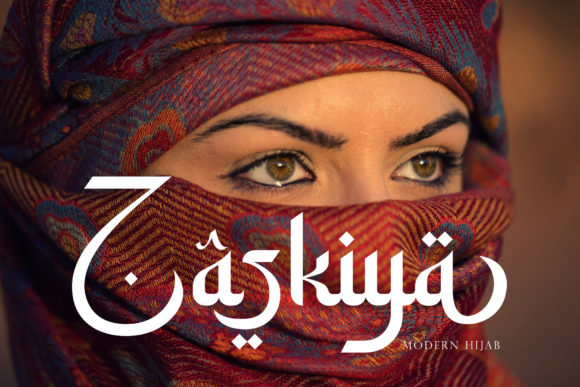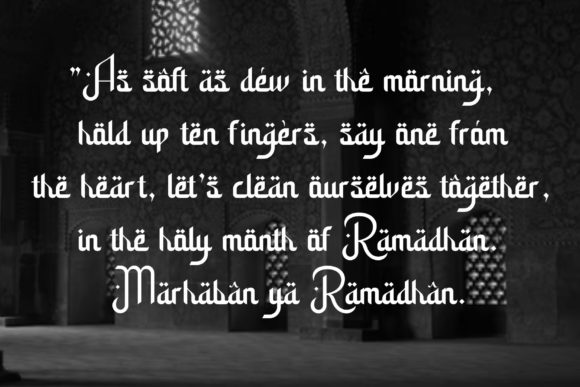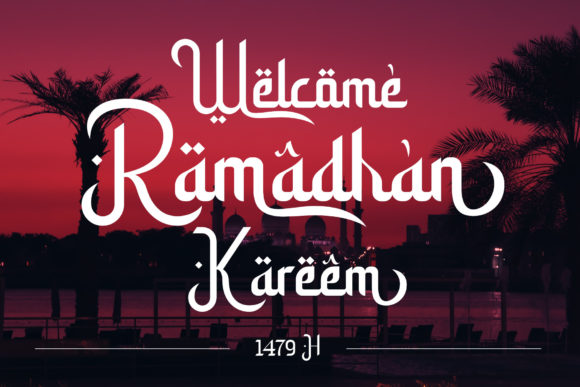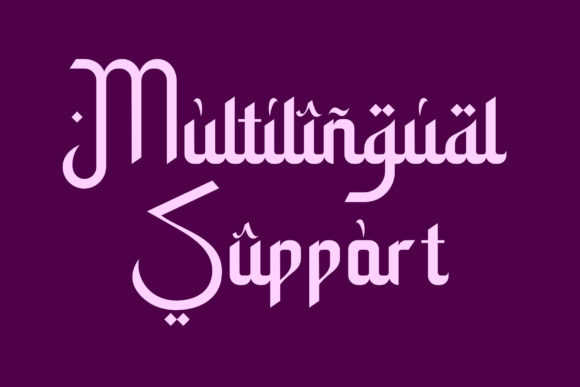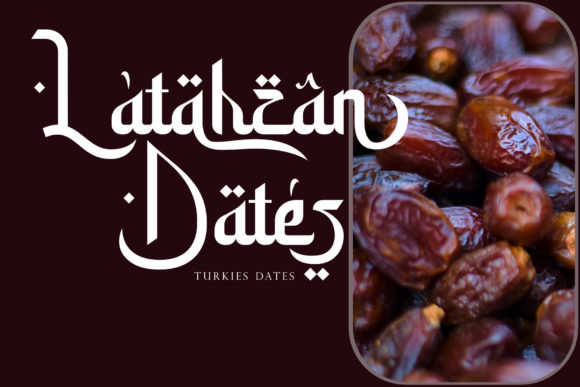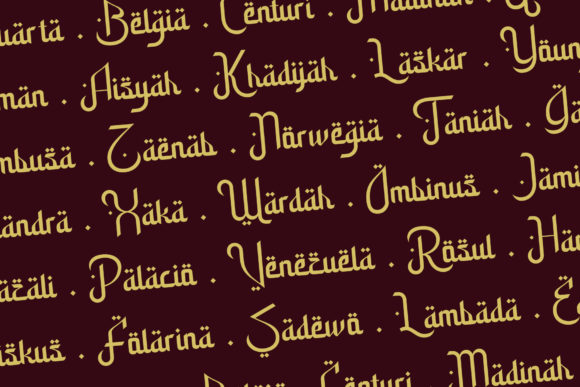
Introduction to Ramadhan Amazing Font
Have you ever been working on a creative project, pouring your heart and soul into it, only to be limited by the design resources available? You finally land on the perfect font, but it’s not quite fitting the vibe you’re going for. This is where the Ramadhan Amazing Font comes in – a stunning Arabic-styled display font that’s sure to elevate your design game.
Whether you’re a seasoned designer or just starting out, the Ramadhan Amazing Font is an invaluable asset to have in your toolkit. With its high-quality design and transparent background, it’s perfect for branding, logotype, and even apparel design. And the best part? It’s PUA encoded, making it easy to access all of the glyphs and swashes you need for a truly unique look.
Key Features of Ramadhan Amazing Font
- High-quality, professional design suitable for various creative projects, including posters, flyers, and digital designs.
- Includes a range of elegant, cursive, and modern font styles to cater to diverse design needs.
- Transparent background, allowing for easy customization and integration into various design elements.
- Perfect for designers and artists looking to add a touch of elegance and sophistication to their work.
Honest Review: Ramadhan Amazing Font
As a designer, I was excited to dive into the world of creative projects and find new design resources to elevate my work. The Ramadhan Amazing Font caught my eye, promising high quality and versatility. After putting it to the test, I’m here to share my honest thoughts.
- ✨ The font is incredibly easy to use, with a transparent background that makes it seamless to overlay on any design.
- ✨ The design is modern and sleek, perfect for any creative project that requires a touch of sophistication.
- ⚠️ The font selection is limited, with only a few styles to choose from.
- ⚠️ The font doesn’t support all languages, which could be a problem for designers working on international projects.
Overall, I’m impressed with the Ramadhan Amazing Font despite its limitations. It’s a great resource for designers looking for a high-quality, modern font for their creative projects. Just be aware of the limitations and plan accordingly.
For the best results, pair the Ramadhan Amazing Font with a transparent background to create a visually appealing design. Experiment with different font sizes, colors, and combinations to add a unique touch to your creative project.
The Ramadhan Amazing Font is perfect for designing Ramadan-themed posters, flyers, and social media graphics. It’s also ideal for creating invitations, banners, and other promotional materials for Eid celebrations.